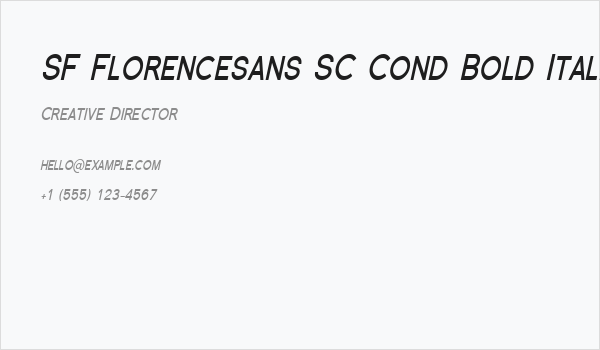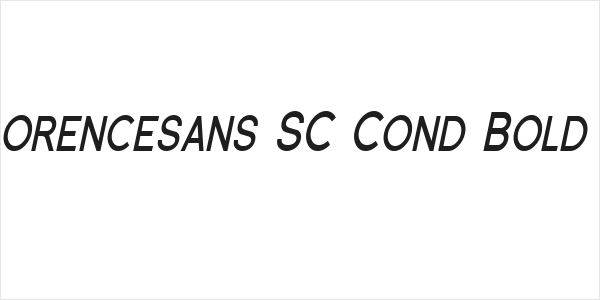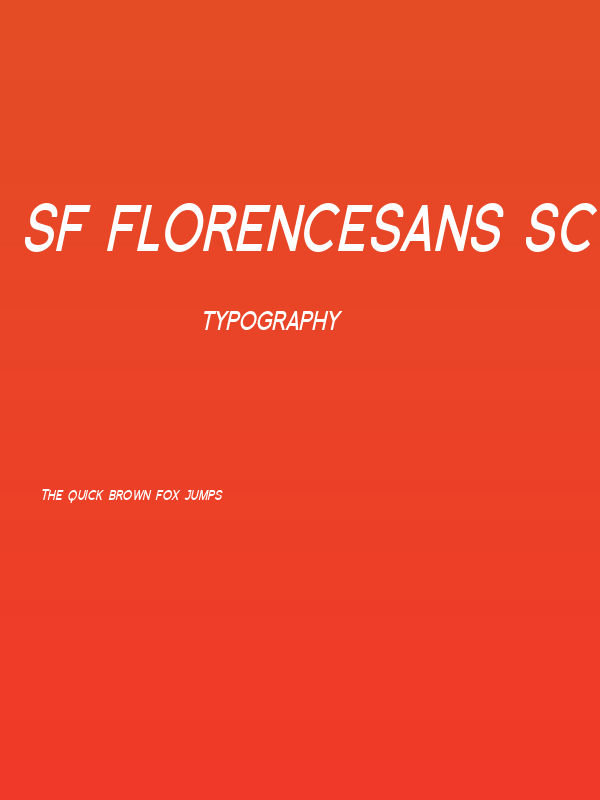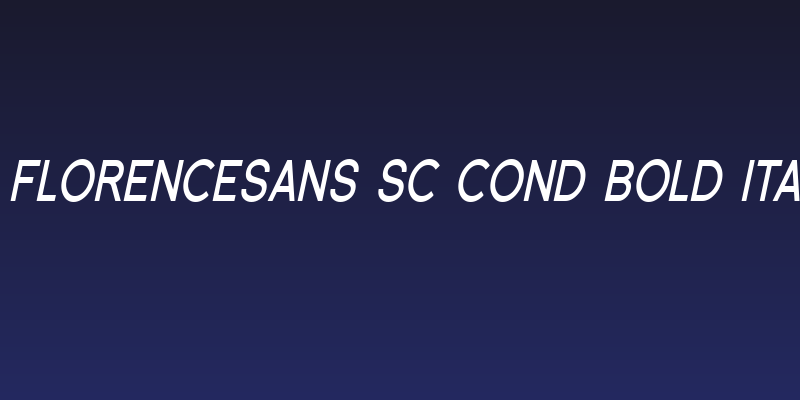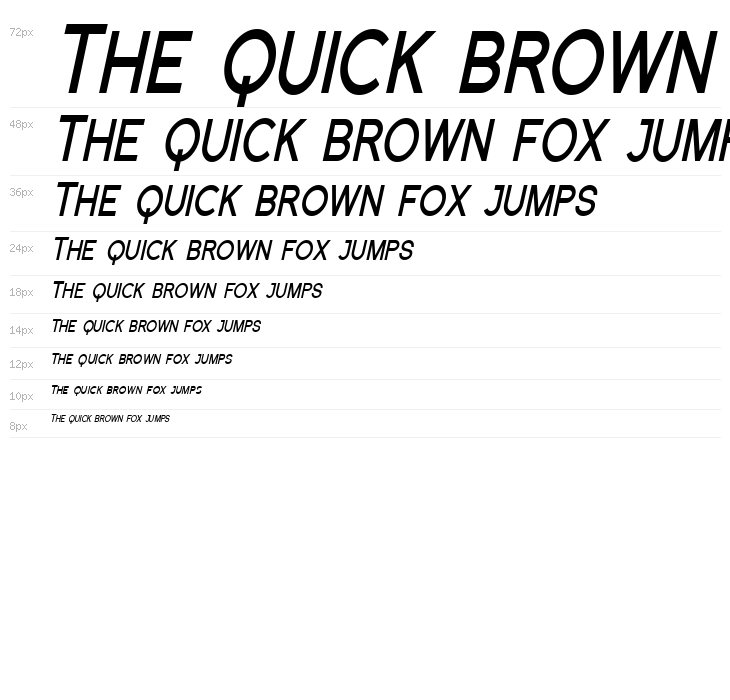
SF Florencesans SC Cond Bold Italic Font
SF Florencesans SC Cond Bold Italic Description
This font features a modern and sleek design with a condensed structure that enhances its bold and italic characteristics. The letters are slightly slanted, giving it a dynamic and forward-moving appearance. The strokes are consistent in thickness, providing a uniform look across all characters. The font maintains a clean and professional aesthetic, making it suitable for various applications. The numbers and special characters are designed to complement the alphabet, ensuring readability and style consistency.
| Proposed Projects | Ideal for branding projects, advertising campaigns, and editorial headlines where a strong and modern impression is desired. |